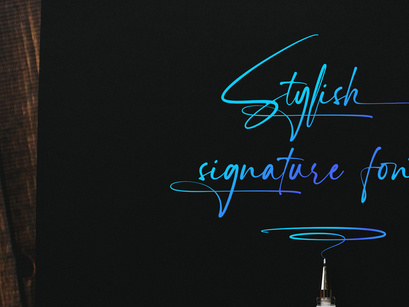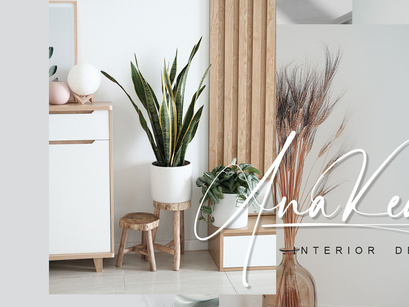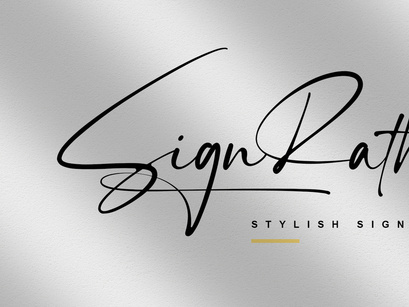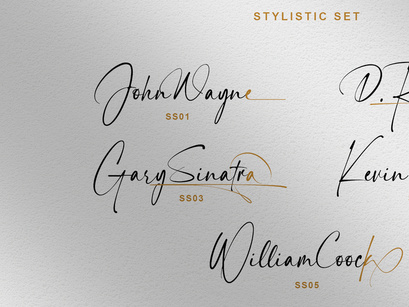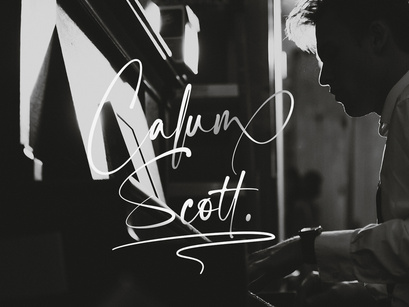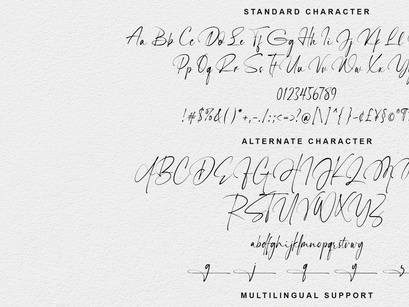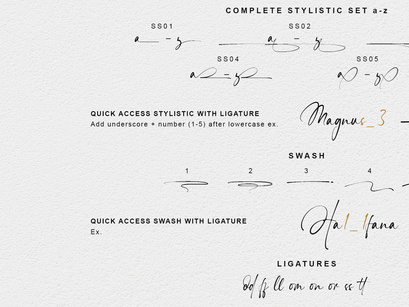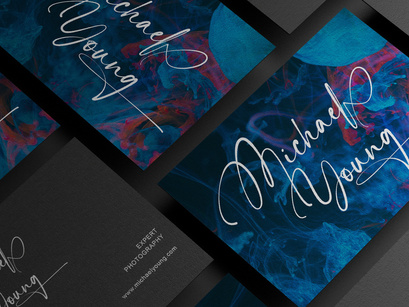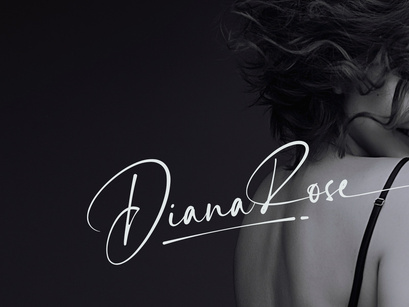
Sign Rathi - Signature Font
Sign Rathi
SignRathi is a perfect signature font, with a natural & stylish flow. SignRathi Font is perfect for many different project such as logos & branding, invitation, stationery, wedding designs, social media posts, advertisements, product packaging, product designs, label, photography, watermark, special events or anything.
Ligatures
Alternate
Swash
Stylistic
Uppercase and Lowercase letters
Numbering and Punctuations
Also Multilingual Support